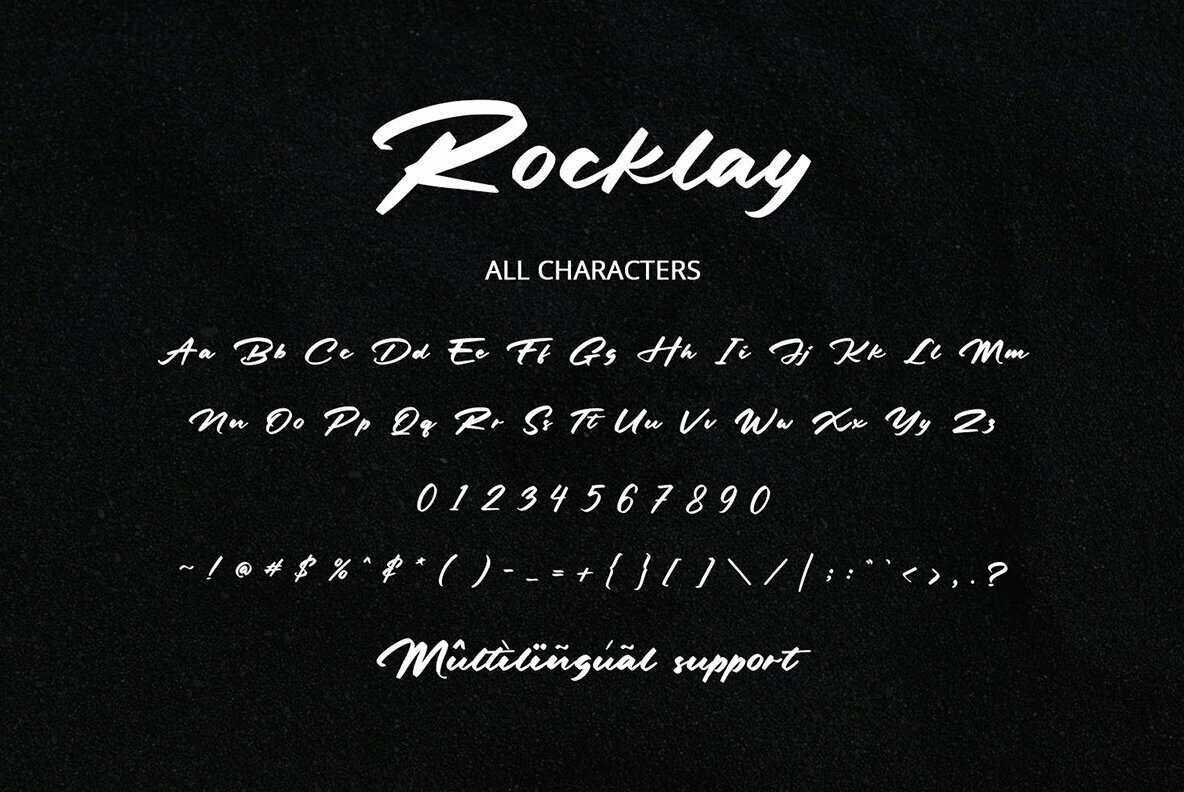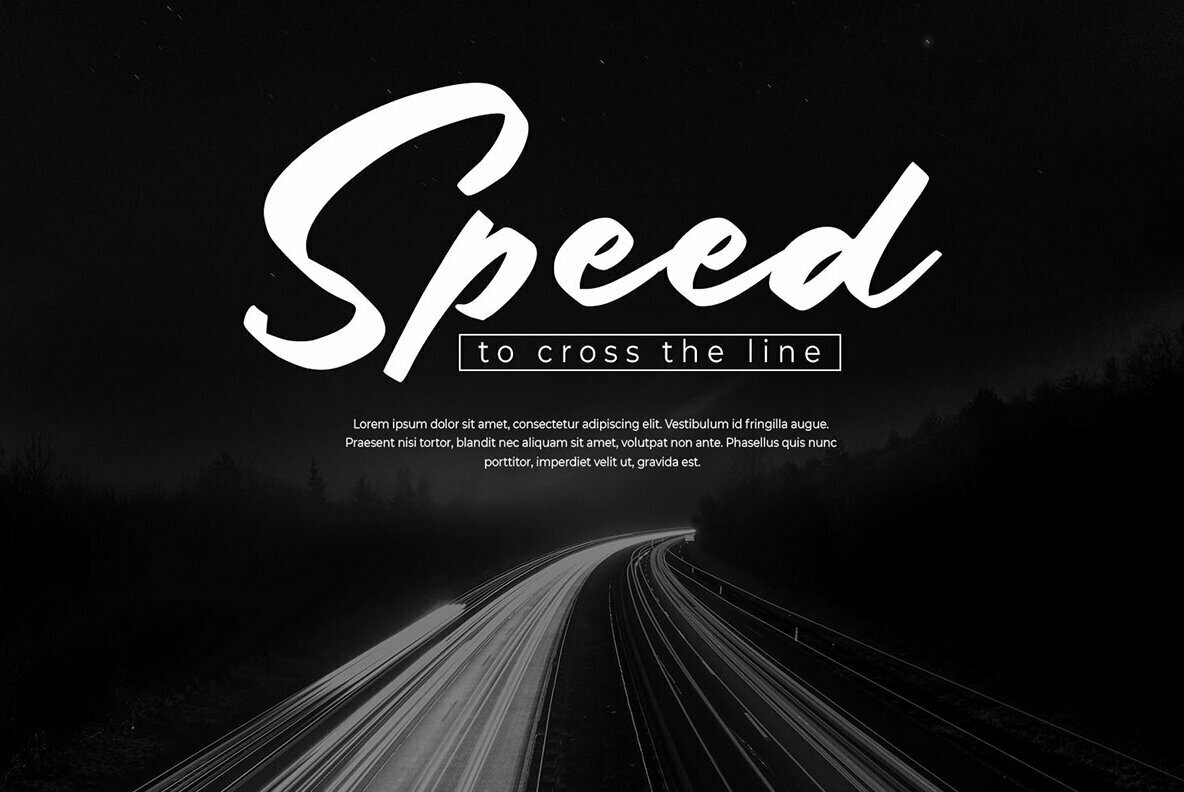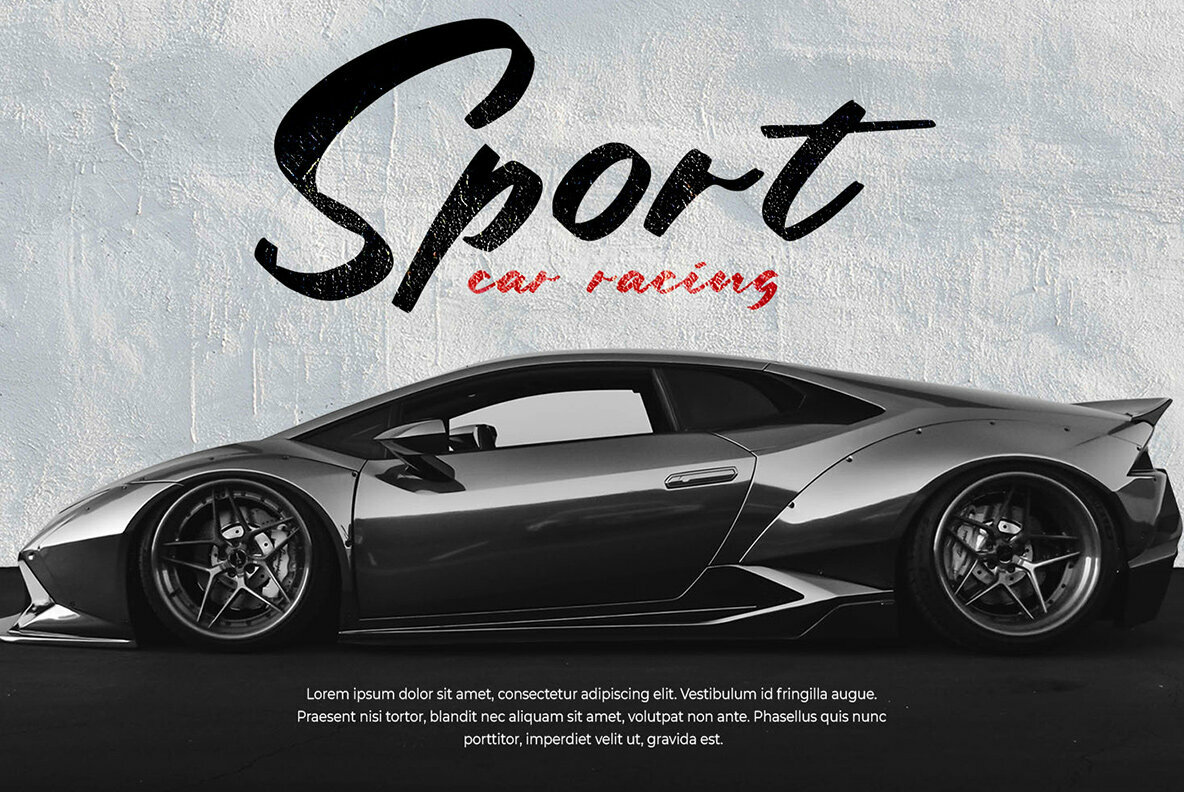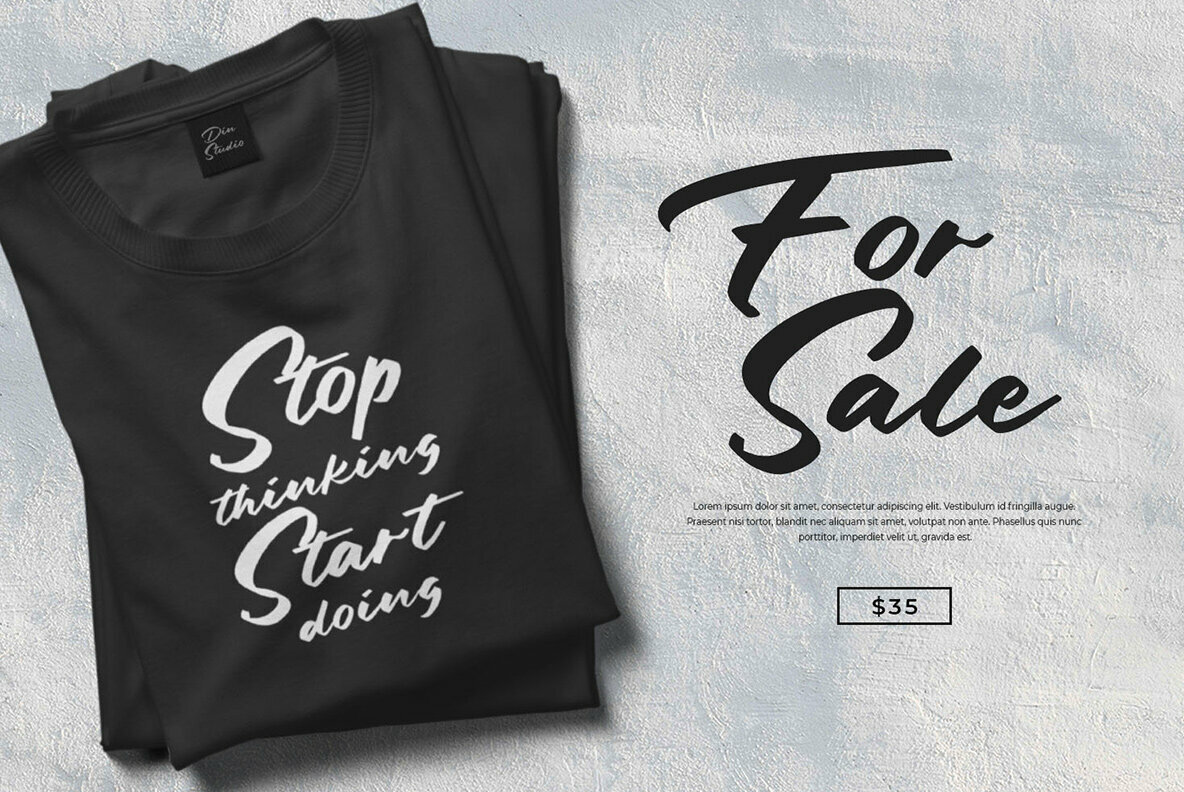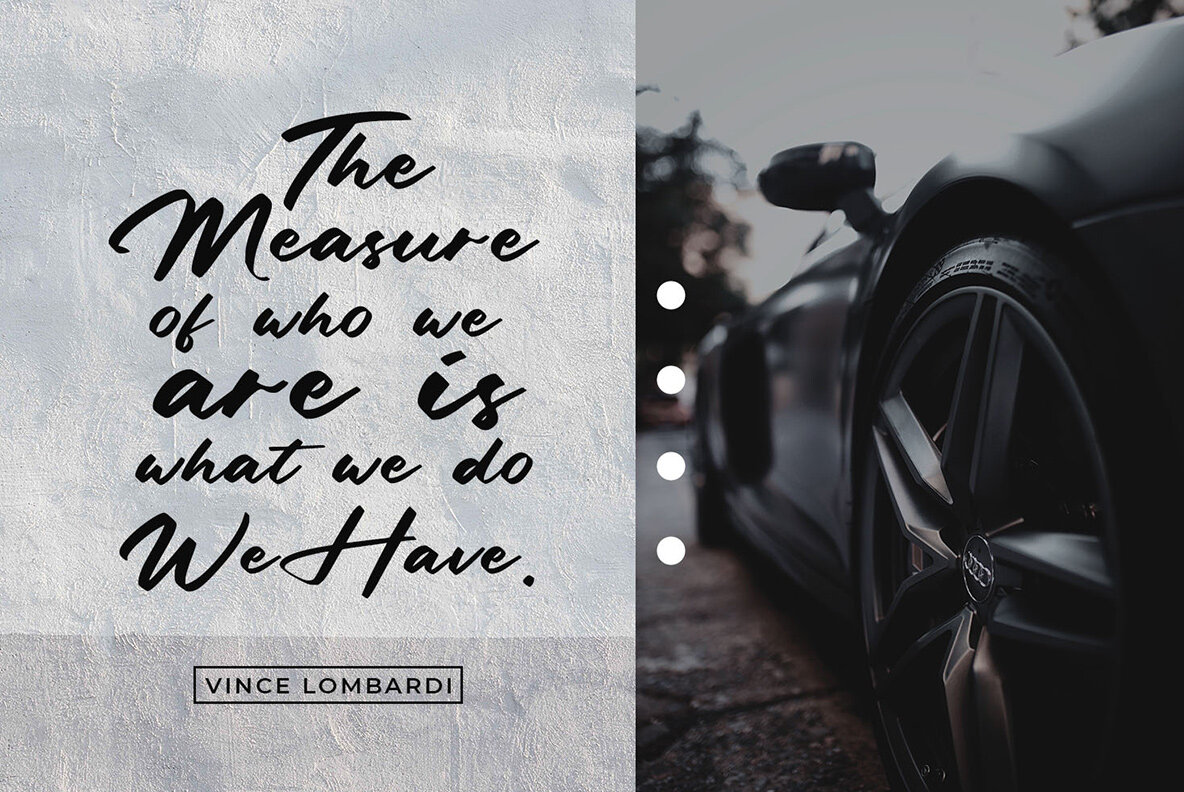
Rocklay Font
Rocklay
Rocklay is a striking script font that merges bold charisma with a natural aesthetic, crafting a truly beautiful typeface. This font excels in branding, logotype creation, and inspirational quotes, offering a unique blend of sophistication and approachability.Rocklay: A Bold Script with Classy Elegance